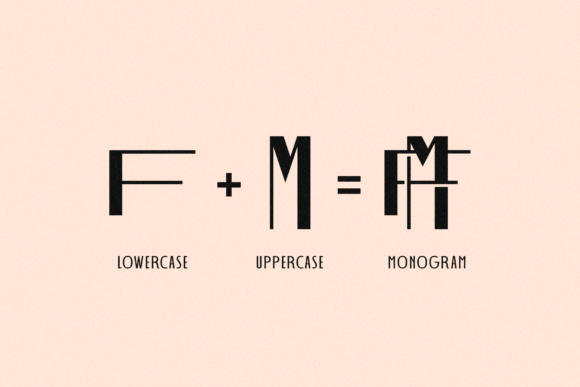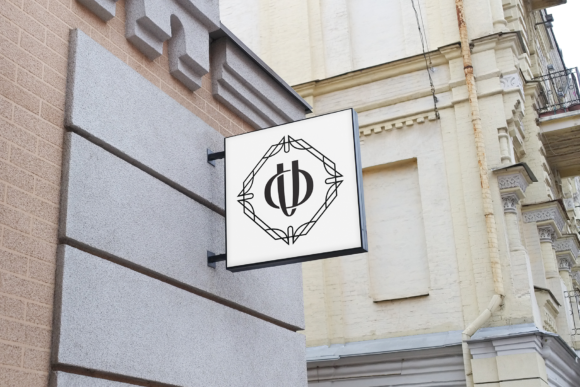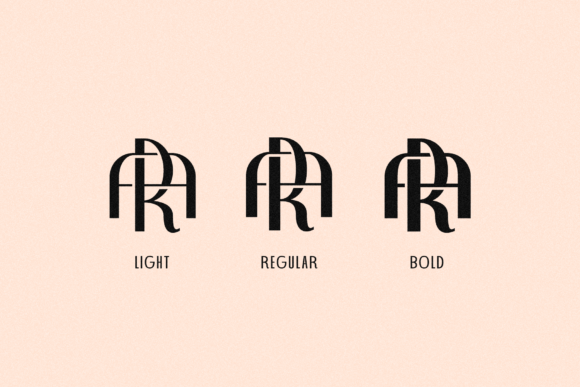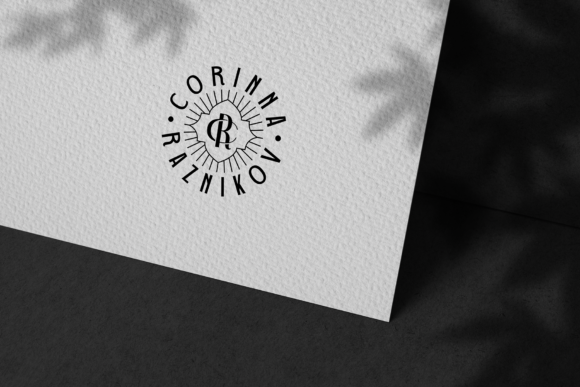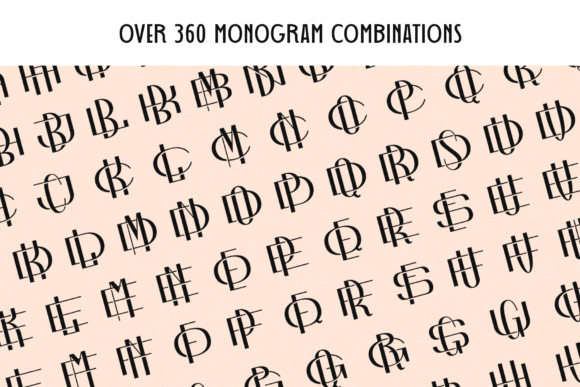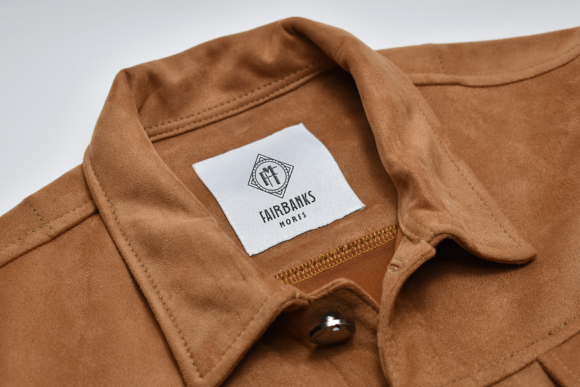
The Art Deco Monogram Font: Elevate Your Designs with Elegance
I’ll never forget the moment I stumbled upon the perfect font for a client’s branding project. It was as if the stars aligned, and my design woes disappeared. The font was Art Deco Monogram, a modern and uniquely lettered display font that instantly added a touch of sophistication to the design. In this article, I’ll share my experience with this beautiful font, its features, and how to make the most of it in various design platforms.
- ✨ Unique and elegant design: Art Deco Monogram boasts a distinctive, stylish look that’s perfect for a wide range of design projects, from luxury branding to wedding invitations.
- ✅ PUA encoded for easy access: The font comes with PUA (Private Use Area) encoding, making it easy to access all glyphs and swashes without any hassle.
- ✅ OpenType features: With OpenType features, you can take advantage of stylistic alternates, ligatures, and other advanced typographic features to elevate your designs.
- ⚠️ Learning curve for beginners: If you’re new to using OpenType features or glyphs, it might take some time to get familiar with the font’s capabilities.
- ⚠️ Limited use cases for body text: Due to its decorative nature, Art Deco Monogram is best suited for headlines, titles, or short text passages, rather than body text.
The Story Behind Art Deco Monogram
Art Deco Monogram was inspired by the opulence and glamour of the Roaring Twenties. The font’s designer aimed to capture the essence of Art Deco’s geometric patterns, luxurious materials, and sophisticated aesthetic. The result is a font that’s both modern and nostalgic, perfect for designs that require a touch of elegance and sophistication.
PUA encoding allows font users to access glyphs and swashes easily, without the need for external software or complicated workarounds. This means you can focus on designing, rather than struggling with font technicalities.